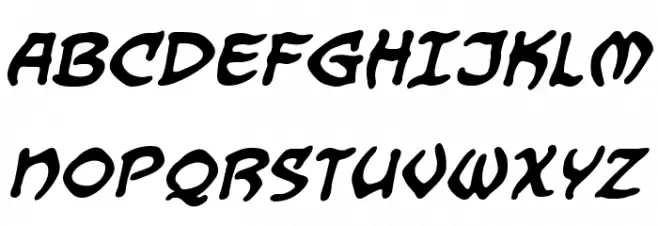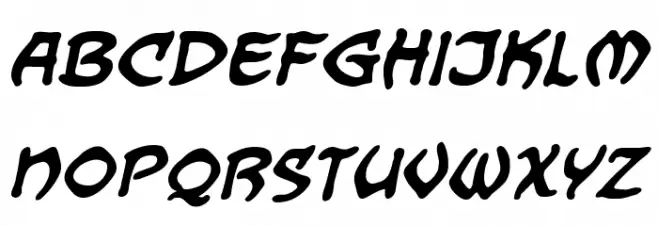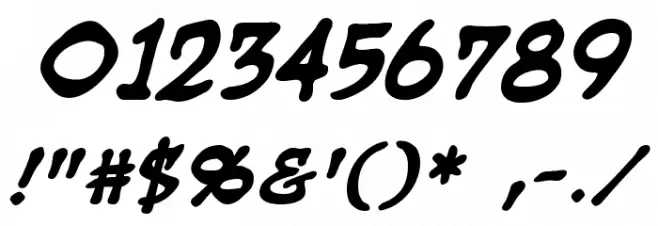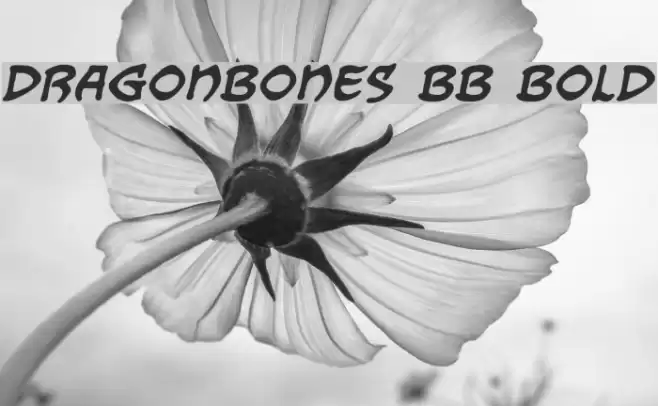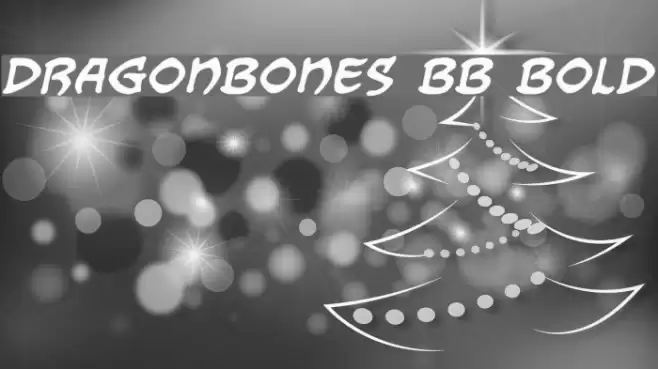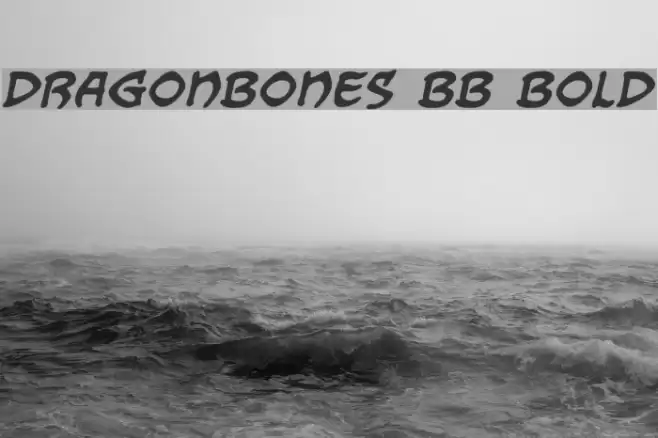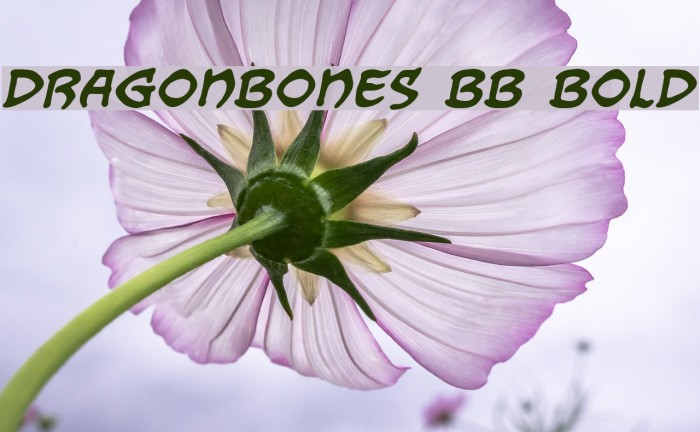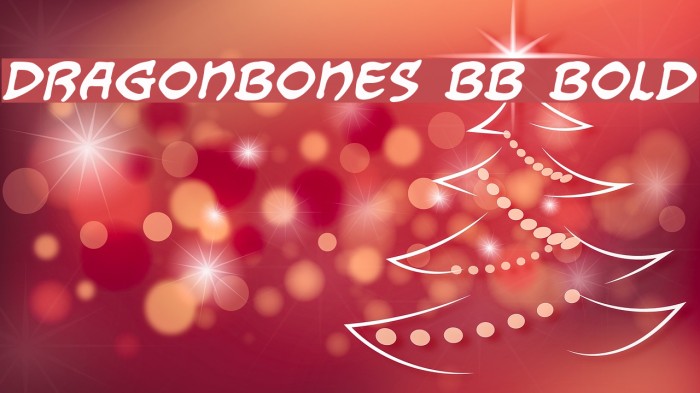
Dragonbones BB Bold
This font features a bold and dynamic style with a unique, hand-drawn appearance. The characters are slightly slanted, giving a sense of movement and energy. The strokes are thick and consistent, providing a strong visual impact. The overall design is playful yet assertive, making it suitable for eye-catching displays. The uppercase and lowercase letters maintain a cohesive look, while the numerals and special characters are designed to match the font's bold aesthetic. The font's distinctive style makes it ideal for creative projects that require a touch of personality.
A bold, dynamic font with a hand-drawn, energetic style.
- Proposed Projects: Great for posters, logos, comic book titles, and creative branding.
- Overall Style: Decorative